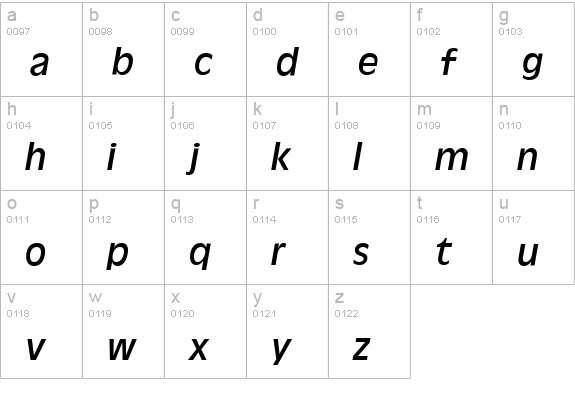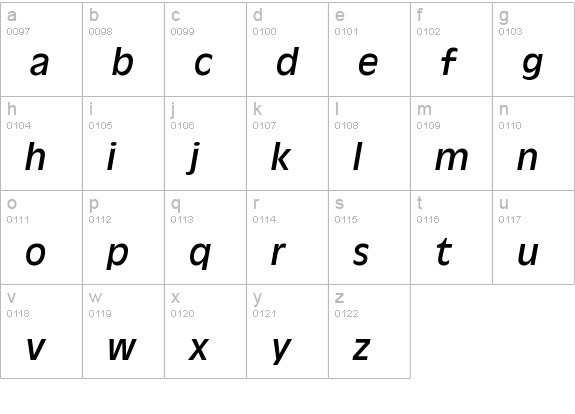
Antigone-Italic is a distinctive, italic variant in the Antigone typeface family \xE2\x80\x94 well suited to design and typography projects.
Antigone-Italic font is a sleek and elegant typeface that exudes sophistication and style. Its graceful italicized design adds a touch of class to any project, making it perfect for formal invitations, branding materials, and editorial content. The flowing lines and subtle curves of Antigone-Italic evoke a sense of timeless beauty and refinement. Best of all, Antigone-Italic is available for free download at FontsMarket.com. This means you can easily enhance your designs with this stunning font without any cost. Don't miss out on the opportunity to elevate your projects with the luxurious charm of Antigone-Italic font. Download it today and add a touch of elegance to your typography collection.